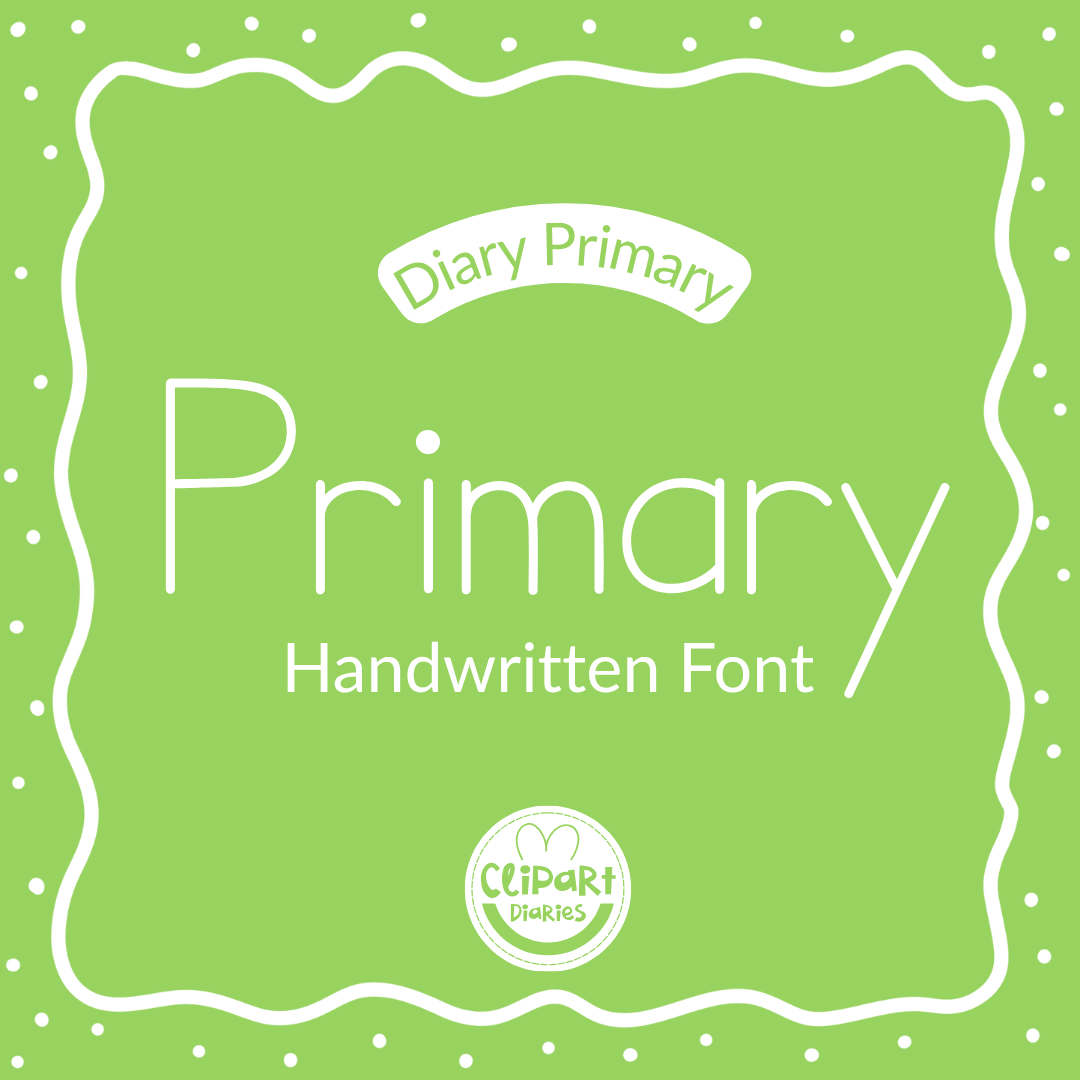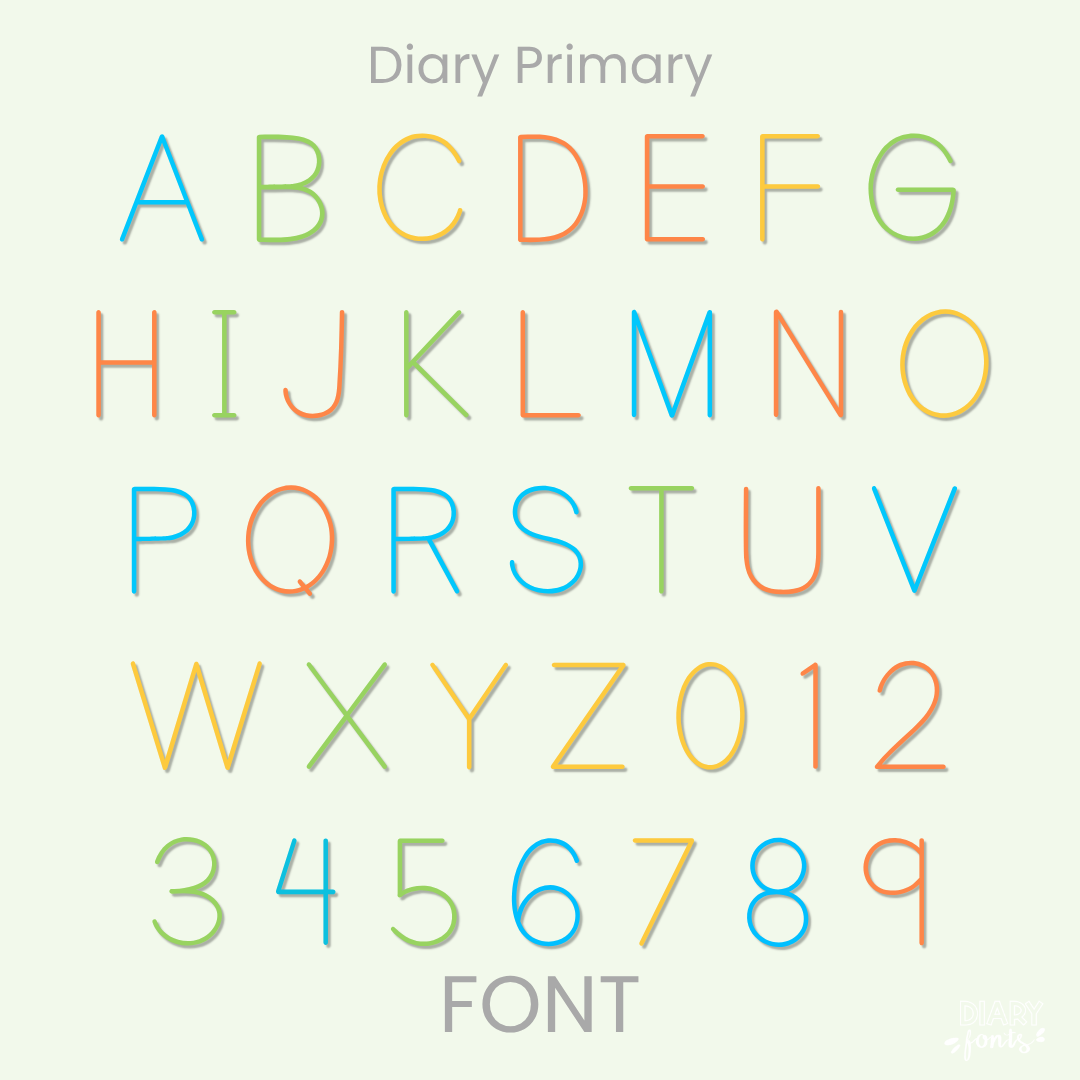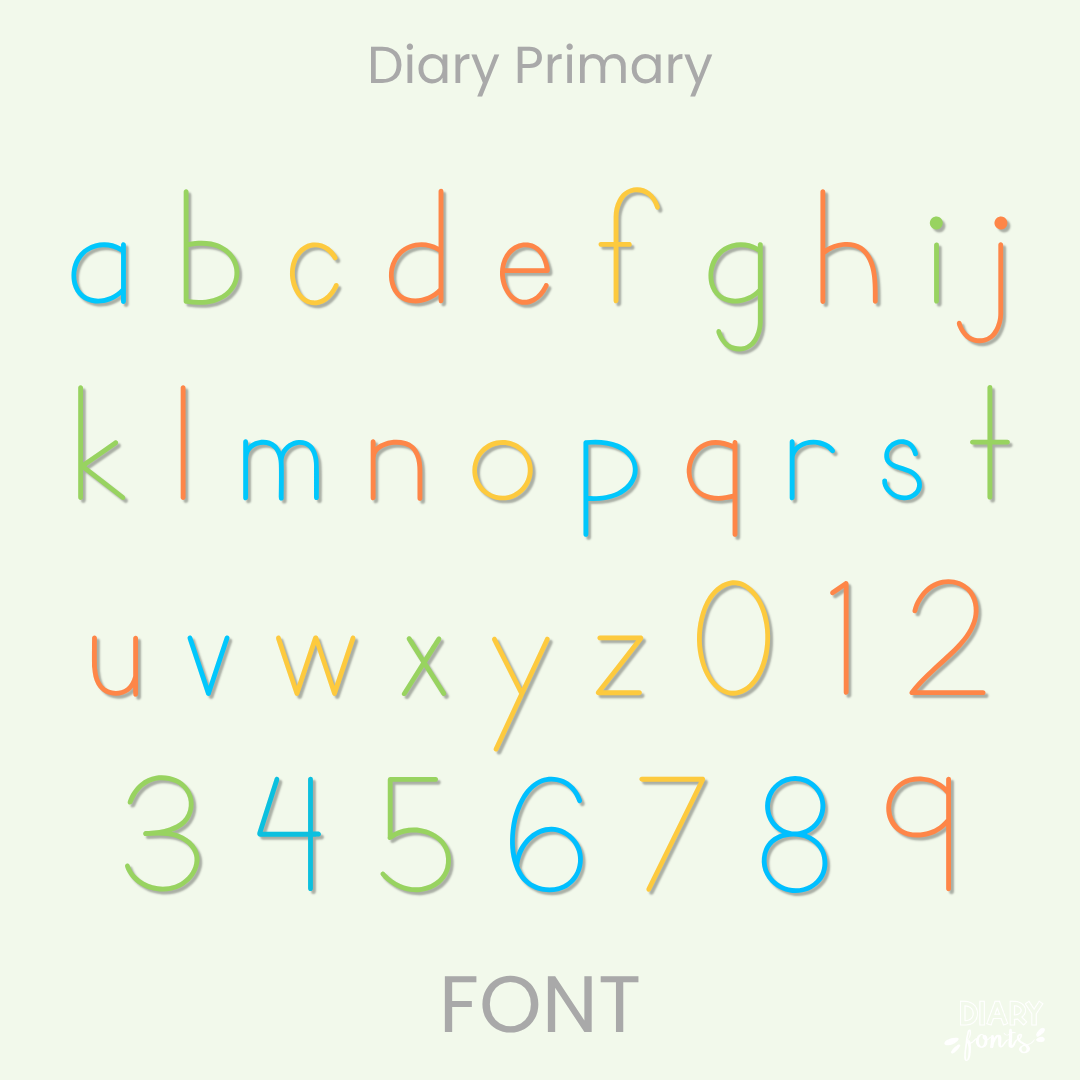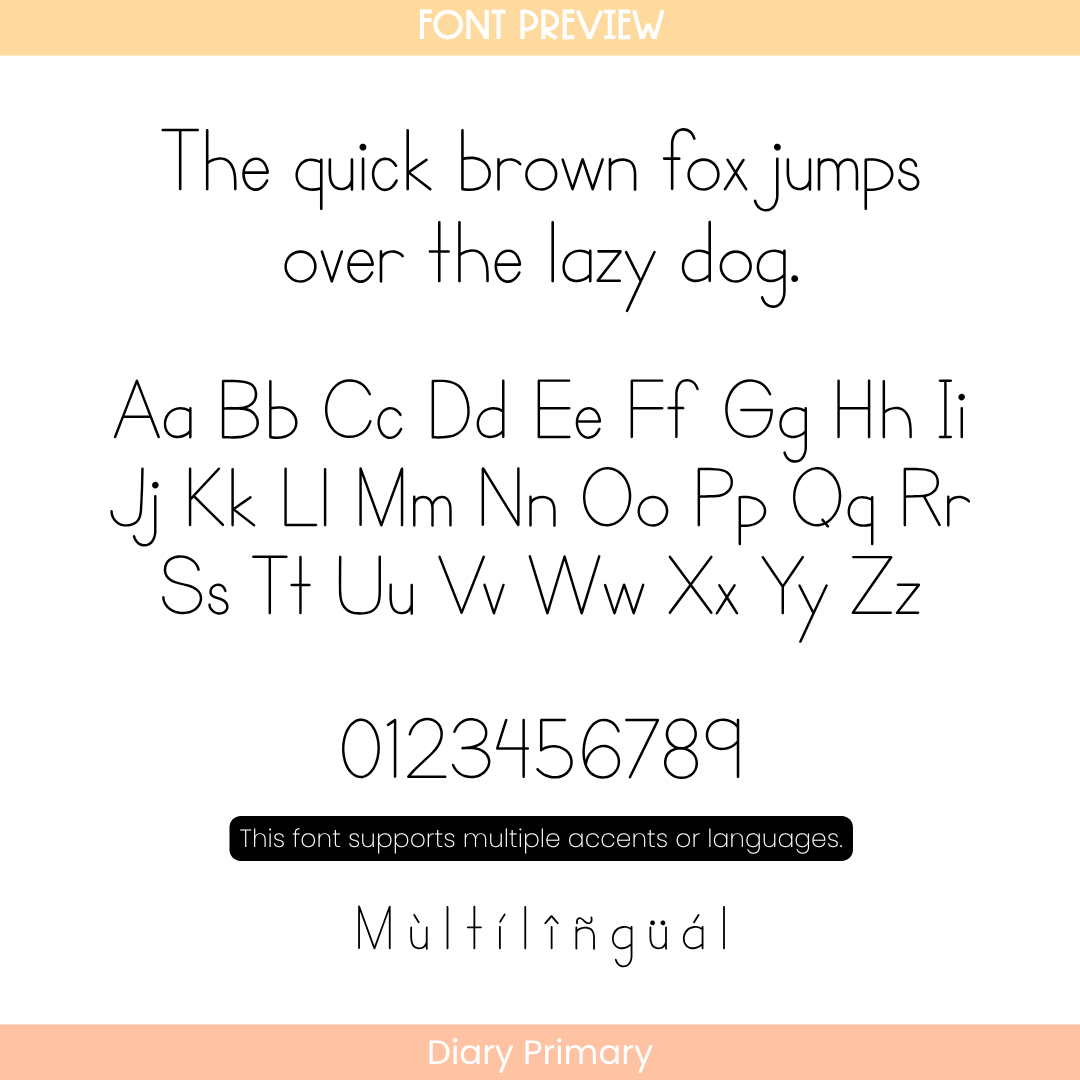
Diary Primary offers a highly structured and standard print format modeled after classical elementary penmanship. Every character is drawn with a vertical, perfectly upright alignment, balanced letter spacing, and a consistent baseline. By avoiding decorative slants or erratic heights, it provides maximum visual clarity, making it an ideal typeface for children who are just developing their reading, writing, and letter-recognition skills.
This font is highly suited for kindergarten and primary grade worksheets, spelling lists, early reading passages, desk nameplates, and simple classroom labels. The package features a comprehensive character set including uppercase and lowercase letters, clear numbers, and accent marks for multilingual support. It installs quickly and operates seamlessly on computer applications like MS Office, Canva, and Adobe Apps, as well as on iPad software such as GoodNotes and Procreate. It serves as a practical tool for personalizing daily classroom activities or developing educational materials.